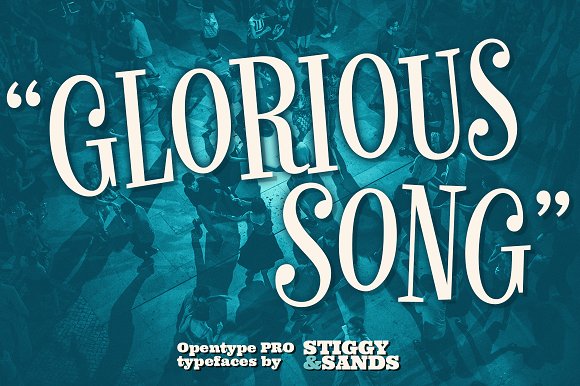
Glorious Song is a is a display serif typestyle that was inspired by the poster lettering for the 1948 movie “Words and Music”. It’s an all capitals typeface that has alternate caps in the lowercase slots to convey all of the spunk and visual dance of the original inspiration.